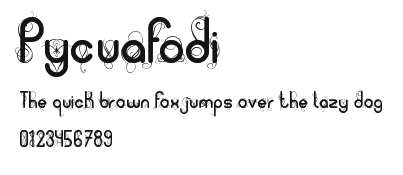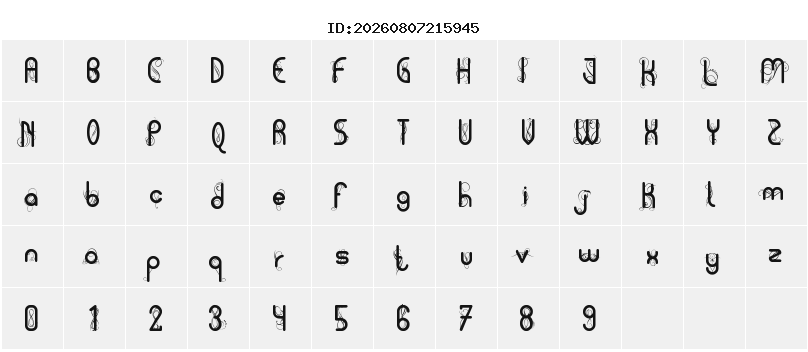
• Font Name: Pycuafodi
• Designer: kaiserzharkhan
About Pycuafodi.ttf
Pycuafodi.ttf is a modern, elegant sans-serif font designed for ultimate readability and visual harmony. Perfect for branding, headlines, web design, and print materials.